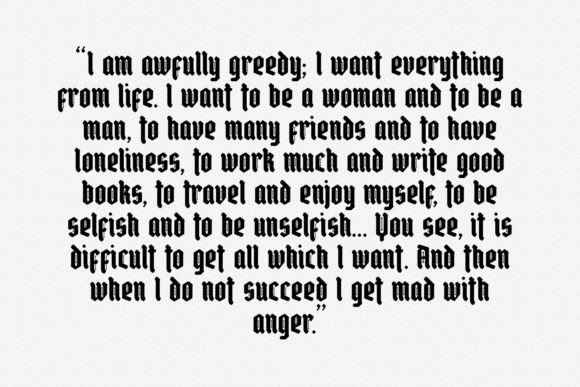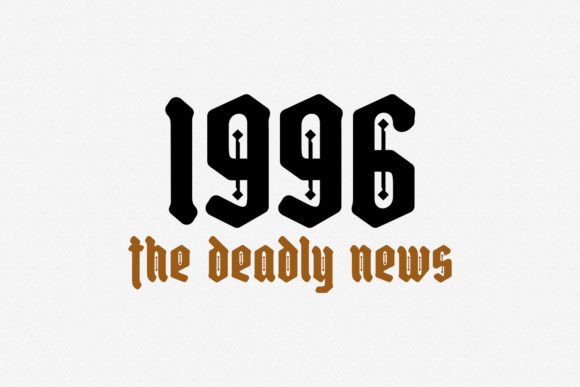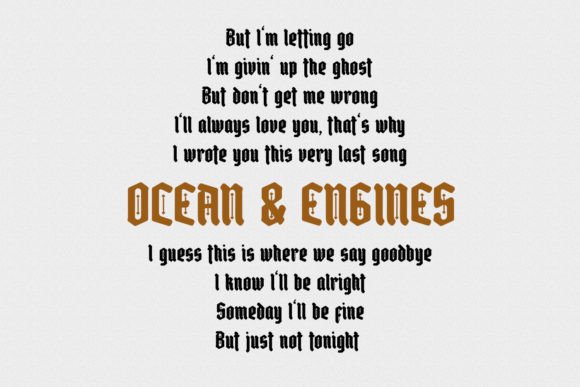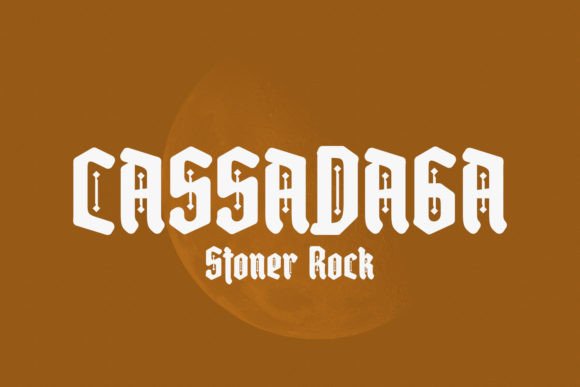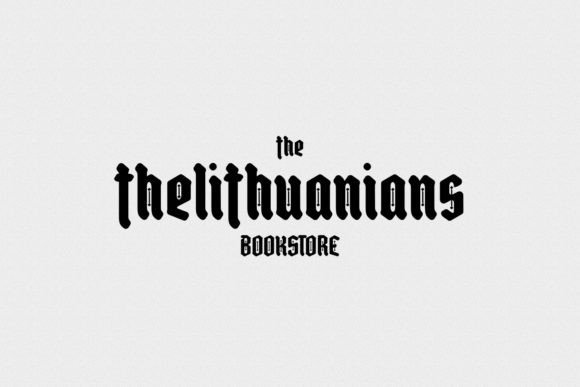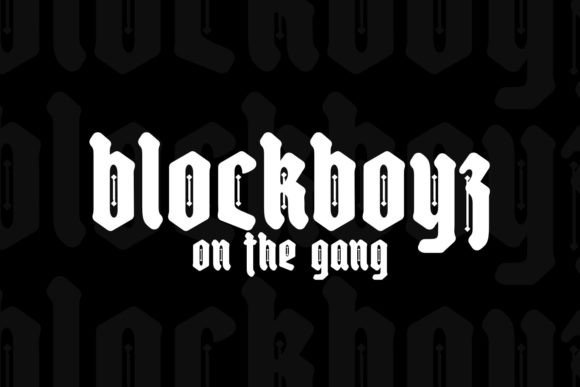
The Bold Statement Maker: High Nobiety Font
I’ll never forget the time I was working on a branding project for a craft beer company. My client wanted a label that would stand out on the shelves, something that screamed “bold” and “daring.” I spent hours scouring font libraries, but nothing seemed quite right. That was until I stumbled upon High Nobiety, a modern blackletter font that instantly caught my eye. Its dramatic lines and confident swagger were exactly what I needed to bring my client’s vision to life.
So, what makes High Nobiety so special? Let’s dive into the good stuff:
- ✨ Instant Impact: This font makes a statement. Its bold, blackletter design demands attention and adds a touch of edginess to any project.
- ✅ Versatility: High Nobiety isn’t just for labels and packaging; it’s perfect for branding, posters, and even social media graphics.
- 💡 Easy to Read: Despite its bold design, High Nobiety remains surprisingly legible, even at smaller sizes.
Of course, no font is perfect. Here are a few quirks to keep in mind:
- 🤔 Limited Use Cases: While High Nobiety is amazing for bold statements, it might not be the best choice for body text or more formal projects.
- ⚠️ Glyph Overload: With so many glyphs and stylistic alternates, it can be overwhelming to navigate the font menu.
The Story Behind High Nobiety
High Nobiety was designed with one goal in mind: to create a bold, attention-grabbing font that would add a touch of sophistication to any project. Inspired by traditional blackletter fonts, the designer wanted to create something modern and fresh, with a unique personality all its own. The result is a font that’s both elegant and edgy, perfect for crafters, designers, and creative hobbyists looking to make a statement.
| What is High Nobiety? | High Nobiety is a modern blackletter font designed for bold and daring typography. |
| What can I use High Nobiety for? | High Nobiety is perfect for product packaging, branding, posters, social media graphics, and more. |
| Is High Nobiety easy to read? | Yes, despite its bold design, High Nobiety remains surprisingly legible, even at smaller sizes. |
| Can I use High Nobiety for body text? | While High Nobiety is amazing for headlines and titles, it might not be the best choice for body text or more formal projects. |